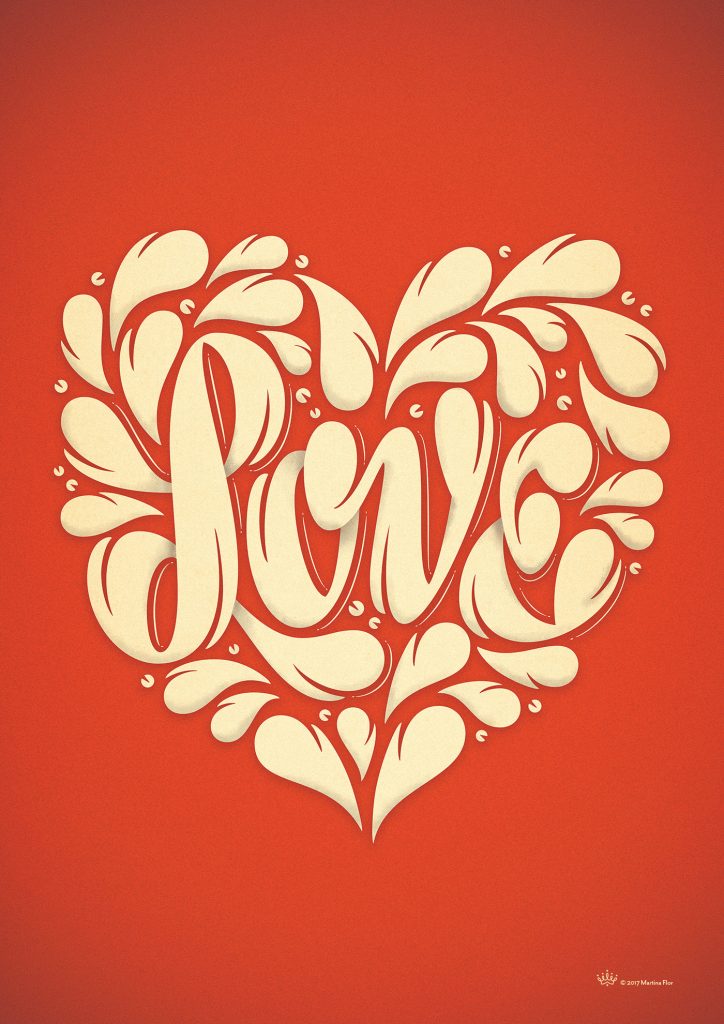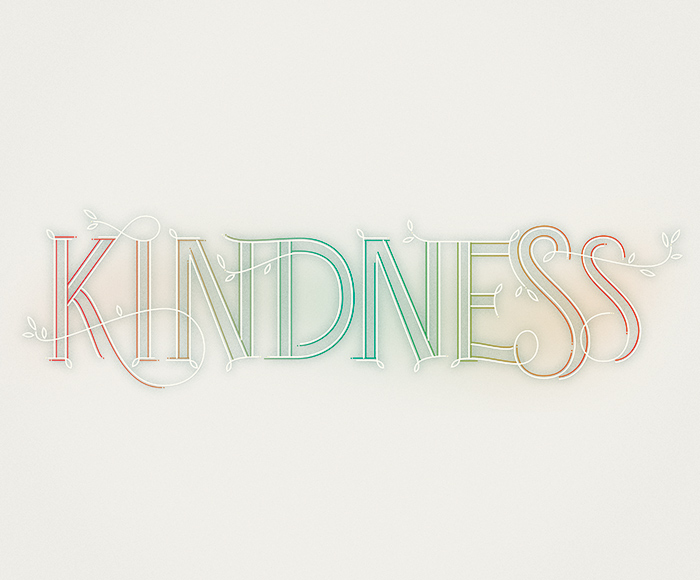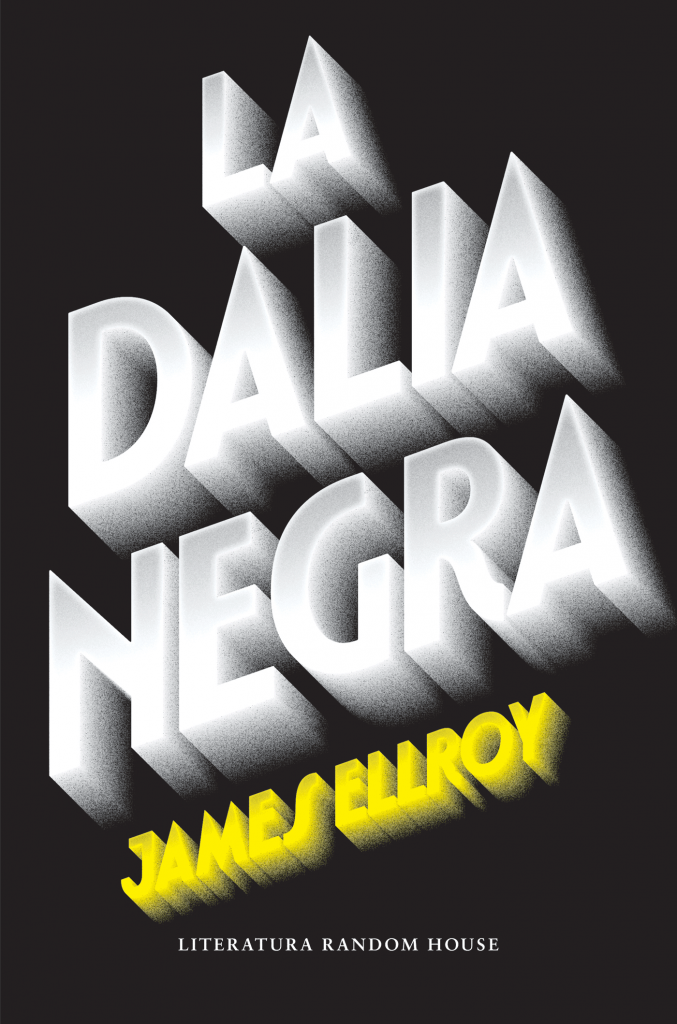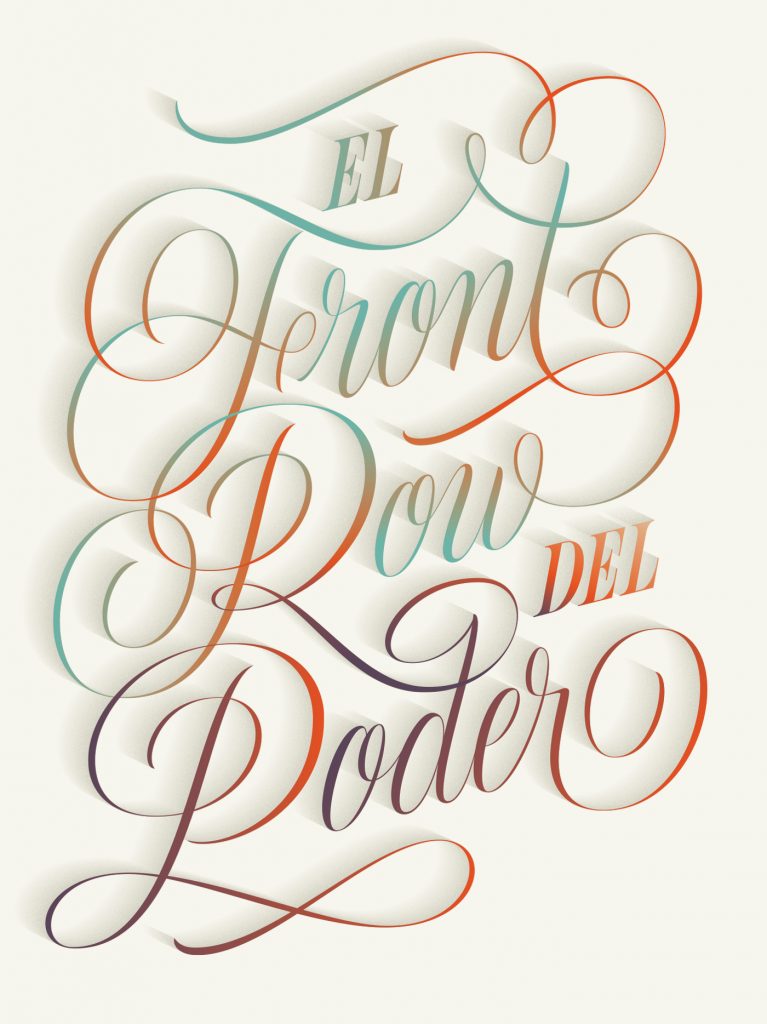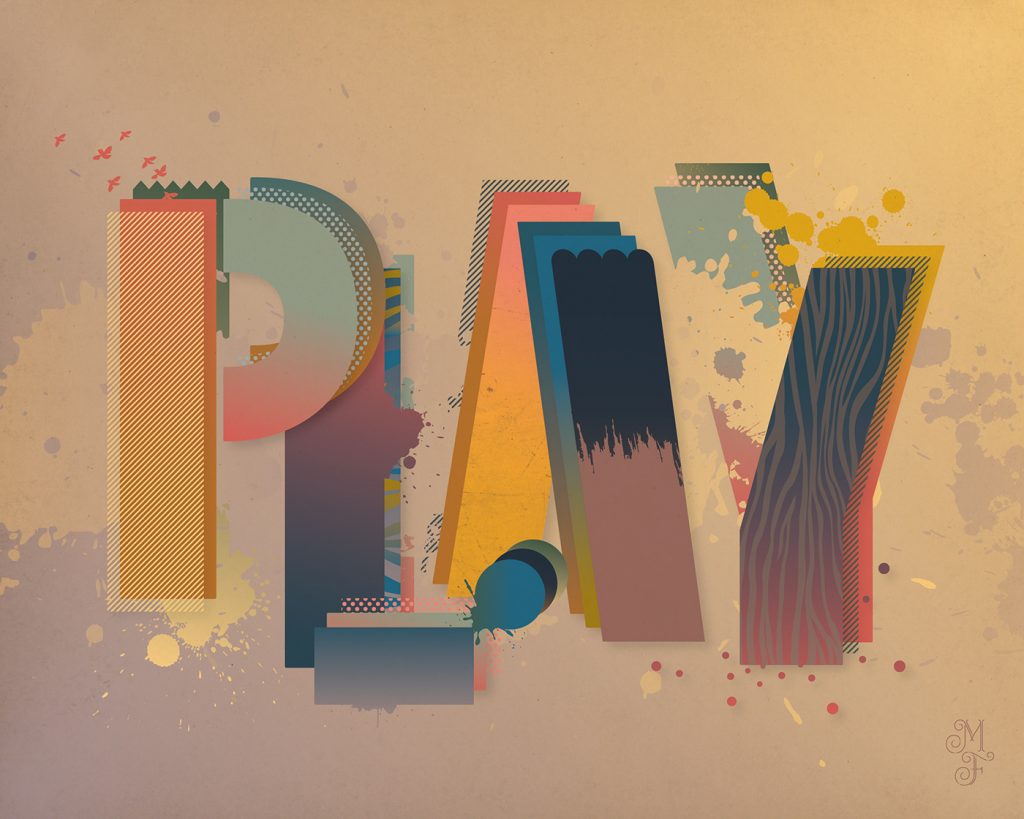
Lettering Legend - Martina Flor Interview
Martina Flor has been a prominent figure and role model within the lettering world for quite some time now. Martina has developed a set of lettering skills which are very powerful both on paper and digitally on screen too. She has perfected decorative lettering along with flourishes and swashes, and has created some very beautiful lettering to showcase her amazing skills whilst working full time as a lettering artist.
Companies including Adobe, HBO, Harper Collins, and Etsy have sought out Martina's lettering skills. She has also presented a number of workshops, given a really impressive talk at a TEDx event and will be teaching a lettering workshop at the Type Directors Club a little later this year. It is a huge honour to teach at the Type Directors Club, and only those who have displayed remarkable skills usually teach. The workshop is on June 10th in New York and is suitable for lettering beginners and those that are more advanced too.
Between client projects, talks and workshops Martina has found the time to work on a number of creative side projects. She co-founded 'Lettering vs Calligraphy' and also created 100 lettered postcards which she sent to family, friends and complete strangers. Martina's projects are always inspiring artists of all skill levels and provide her audience with new and exciting work to admire. Martina is incredibly deserving of the title 'Lettering Legend', she has worked hard, inspired so many globally and is continually pushing the boundaries within lettering and discovering wonderful things in the process.
In this interview, Martina shares information about her latest lettering book, challenges that can arise from using flourishes, her lettering preferences and more.
You co-founded 'Lettering vs Calligraphy' where you challenged calligraphy artist Giuseppe Salerno with your lettering skills. If you could challenge any lettering artist past or present with your skills, who would you choose and why?
"Probably total world masters like Ed Bengiat, Doyald Young or Herb Lubalin. Since I know they will win every time, that will give me the room to just relax and make crazy stuff."
Your portfolio is full of work that features a number of different languages. Do you think language can create a barrier when it comes to creating lettering, or do you find the art of lettering is truly universal?
"I think that the barrier narrows down to “readability”. Can you read it in the language that it is created for? I think that good typography should take care of the particularities of each language and not put style over grammar. Some typographic styles might well have different significances according to the language."
A short while ago you released a beautiful looking book titled ‘Lust auf Lettering’. What can readers expect from your book, and is there an update on when an English version will be available?
"Yes, it is being published in English in April and other versions in Spanish and French will follow later this year. I created the book under my personal belief that anybody can draw letters. The book covers the basics of letter design and guides you through the process of creating a lettering piece. Along the way, I write about observation, optical adjustment, lettering styles and professional work as a letterer. As the book is a good tool for whoever wants to take the first steps into letter design, I think it is about much more than just lettering."
Adding clever flourishes and creative decorative elements to your work is a technique you have truly perfected. What are some of the challenges that can arise when incorporating flourishes and decorative elements into your lettering?
"The problem when incorporating flourishes arises when you haven’t thought about those flourishes upfront. Although they might seem like the last layer of your work, adding decorative elements much later on in your artwork may lead to spacing problems or composition catastrophes — when you, for instance, hadn’t initially thought of adding flourishes between that ‘A’ and that ‘N’."
The lettering you have created incorporates use of uppercase letters just as frequently as lowercase letters. Do you have a preference when it comes to letter case, or do you specifically choose a case to suit the requirements of a project?
"Yes, that depends on the project. However, the style of lettering I work with often determines the case. Cursive lettering might need lowercase letters because uppercase letters tend to be very decorative and expressive, therefore, hard to read when in all caps. If the lettering has to fit a certain shape, you might be better off with uppercase letters, because of their unicase nature. Generally, lowercase letters allow for more flourishing and ligatures than uppercase letters, and those are things that you’d want to have as I think that they add a lot of flavour to a piece."